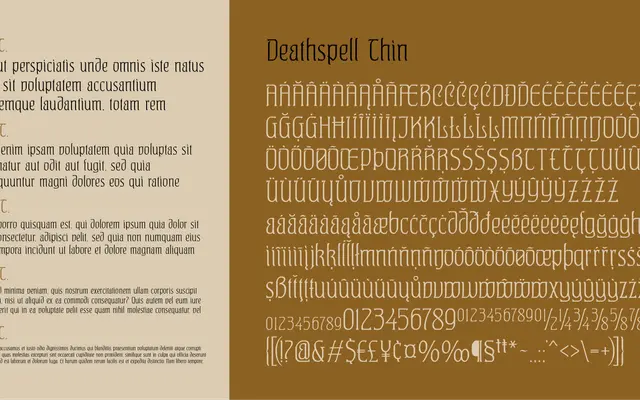
Deathspell
Carmel Type Co. · Jason Carne
A revival of Carl Albert Fahrenwaldt's Hohenzollern script, expanded across nine weights with support for over 75 Latin-based languages.
Based on the Hohenzollern letter style first published in the 1909 Schriften Atlas, this face occupies a distinctive territory between traditional blackletter and art nouveau. Jason Carne extended the original 26-character specimen into a full working family with 380+ glyphs per style, custom diacritics, currency symbols and punctuation across nine weights. The result is a century-old aesthetic made practically usable for contemporary display work.
Rooted in a revival of Hohenzollern, a transitional letter style bridging blackletter and art nouveau, placing it firmly in the blackletter category with a distinctive transitional subcategory.